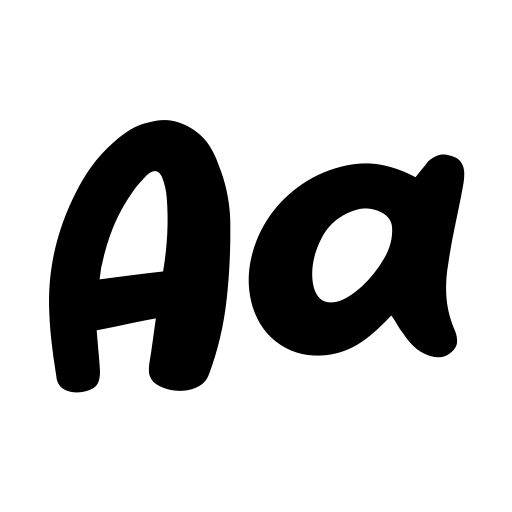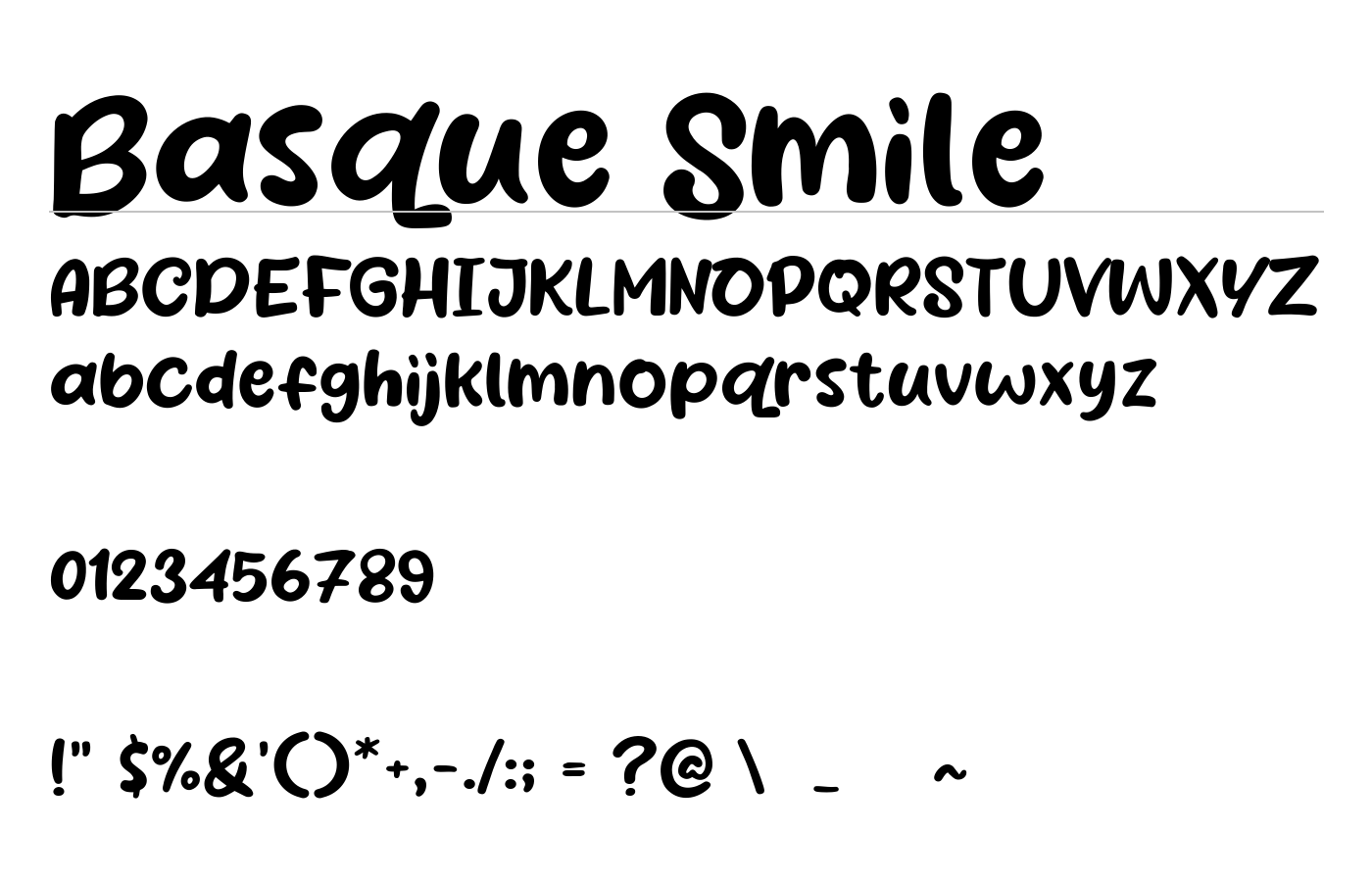
Basque Smile is a playful, rounded sans serif font with a friendly and casual feel, featuring smooth, moderately thick strokes and a slightly condensed width. Its lively letterforms are well suited for projects seeking a warm, approachable tone, making it ideal for children’s books, informal branding, or cheerful headlines. The font’s clear readability and charming personality help it bring a sense of fun and friendliness to any design.
Basque Smile Font
About Basque Smile Font
| Font family | Basque Smile Font |
| Designer | Khurasan & Jalembe |